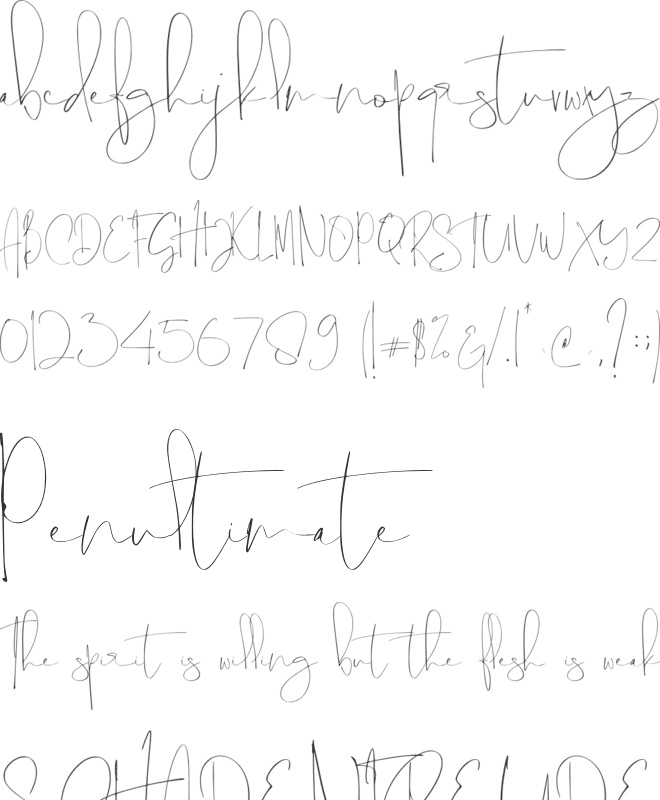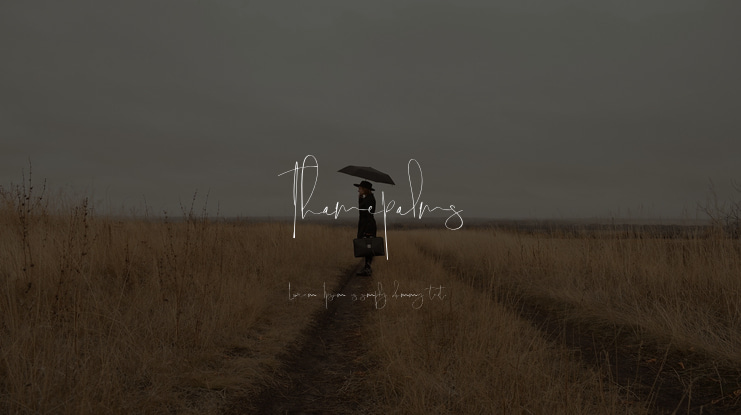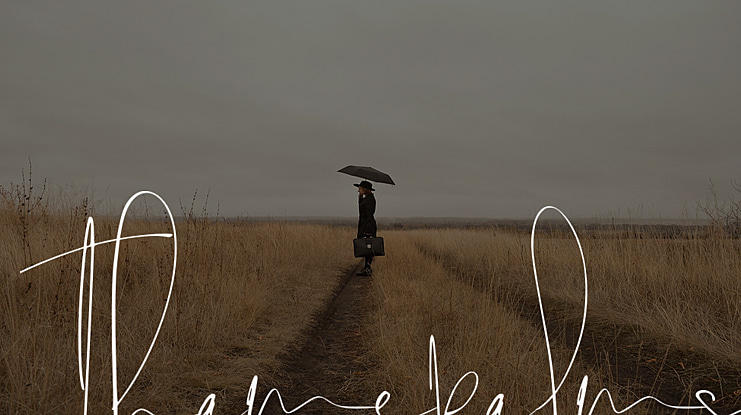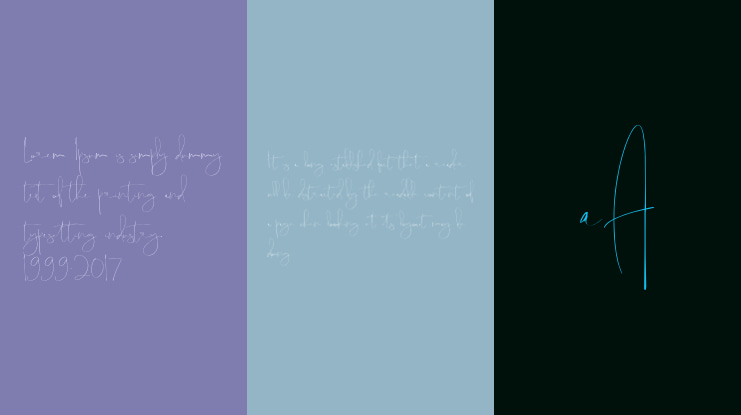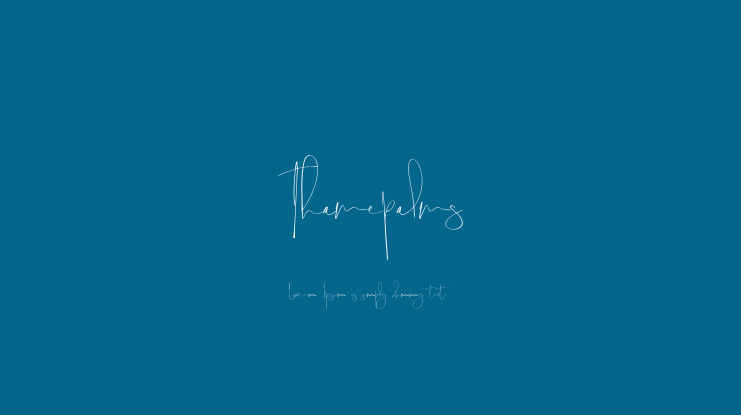
Hello Thamepalms Font is pure hand strokes that are inspired by pure handwriting from natural hands, elegant strokes bring out authentic writing, coupled with letter endings with long lines to enhance your Type